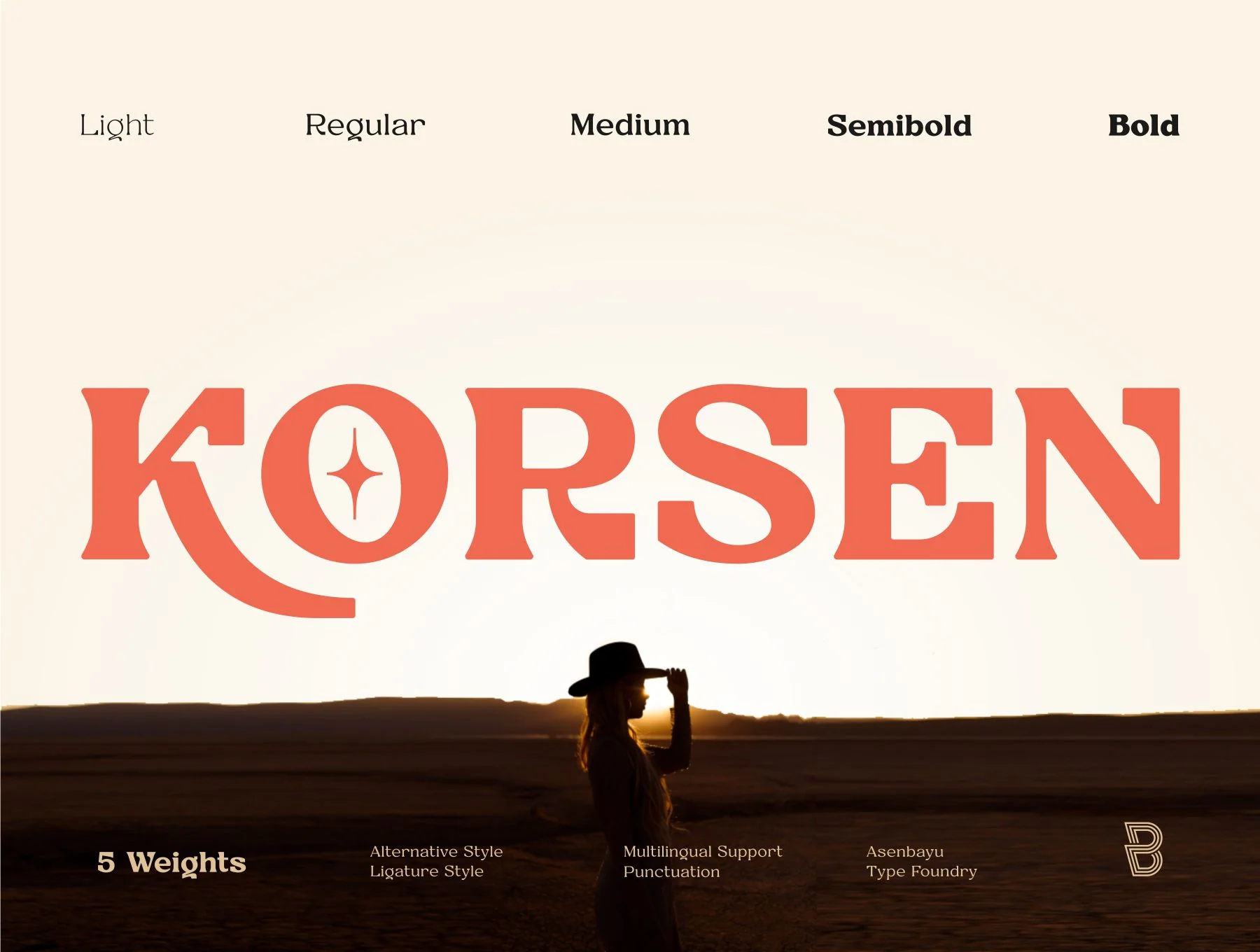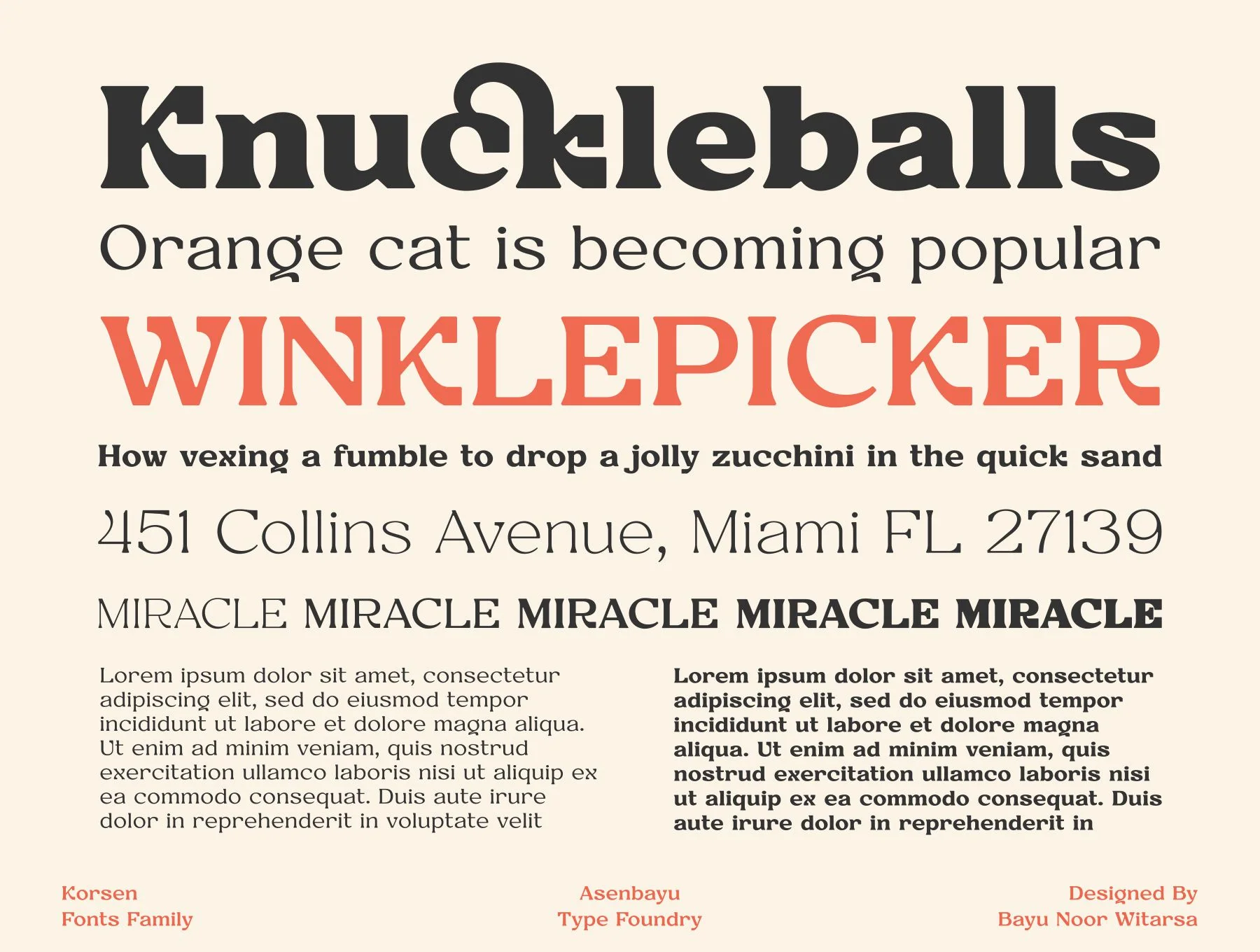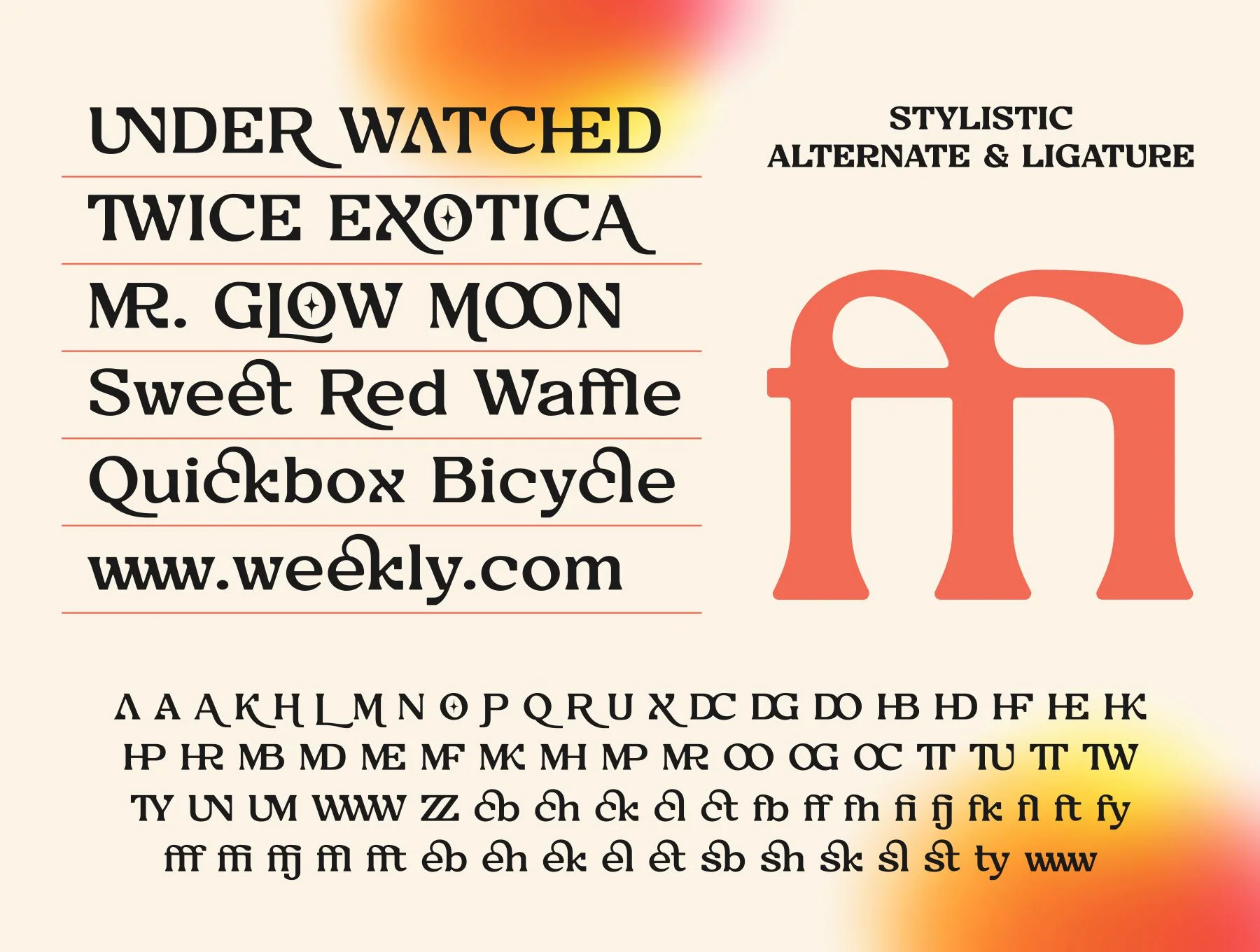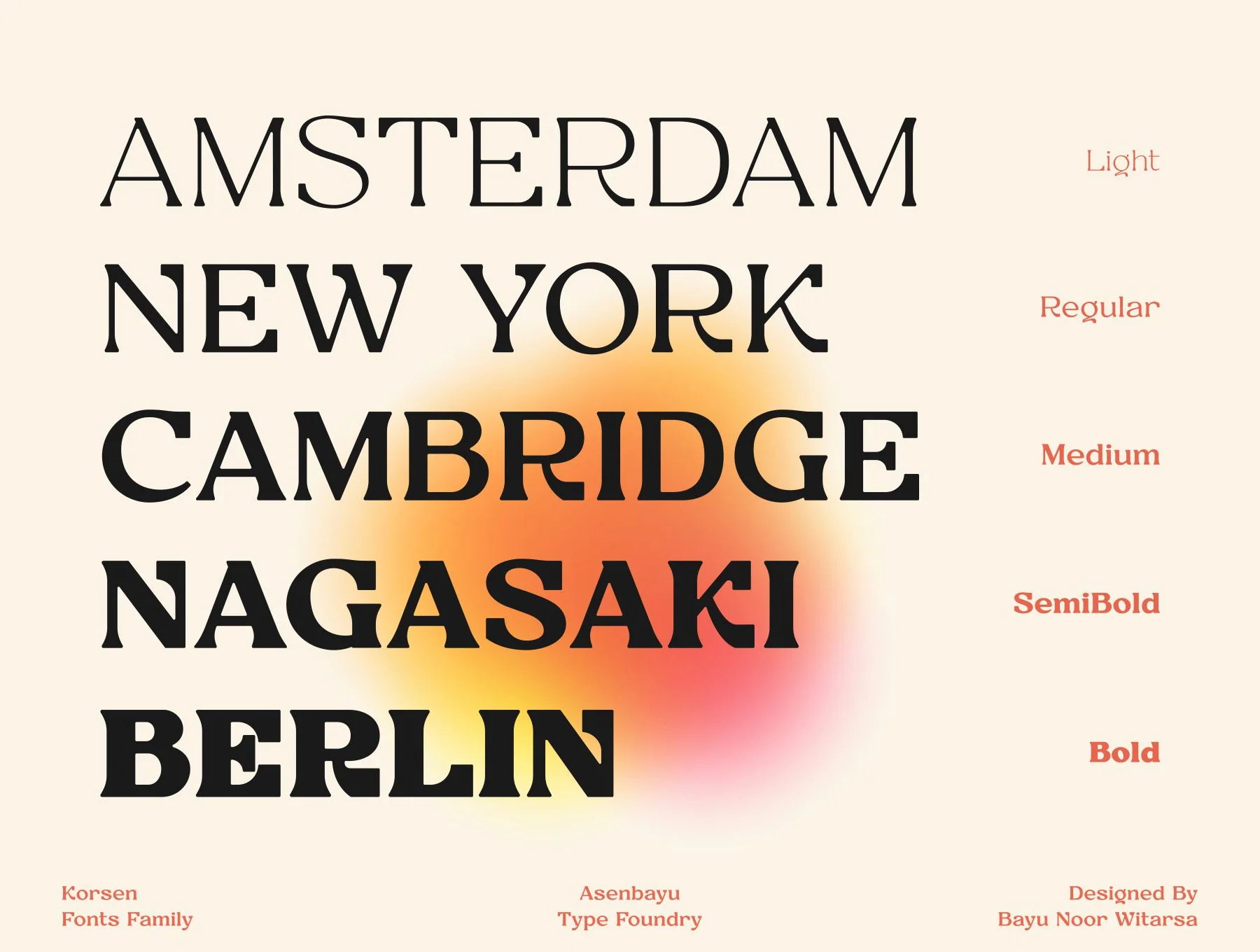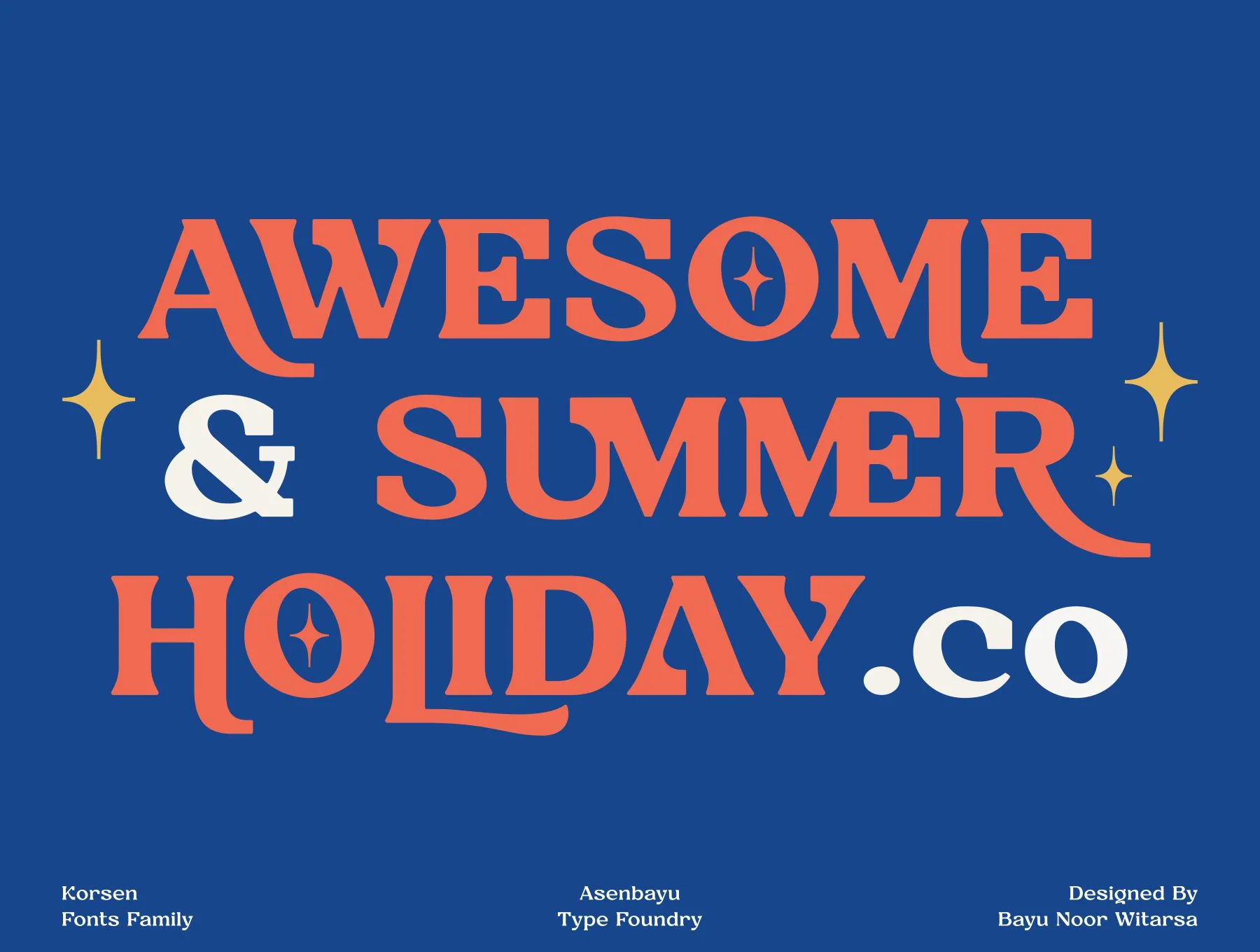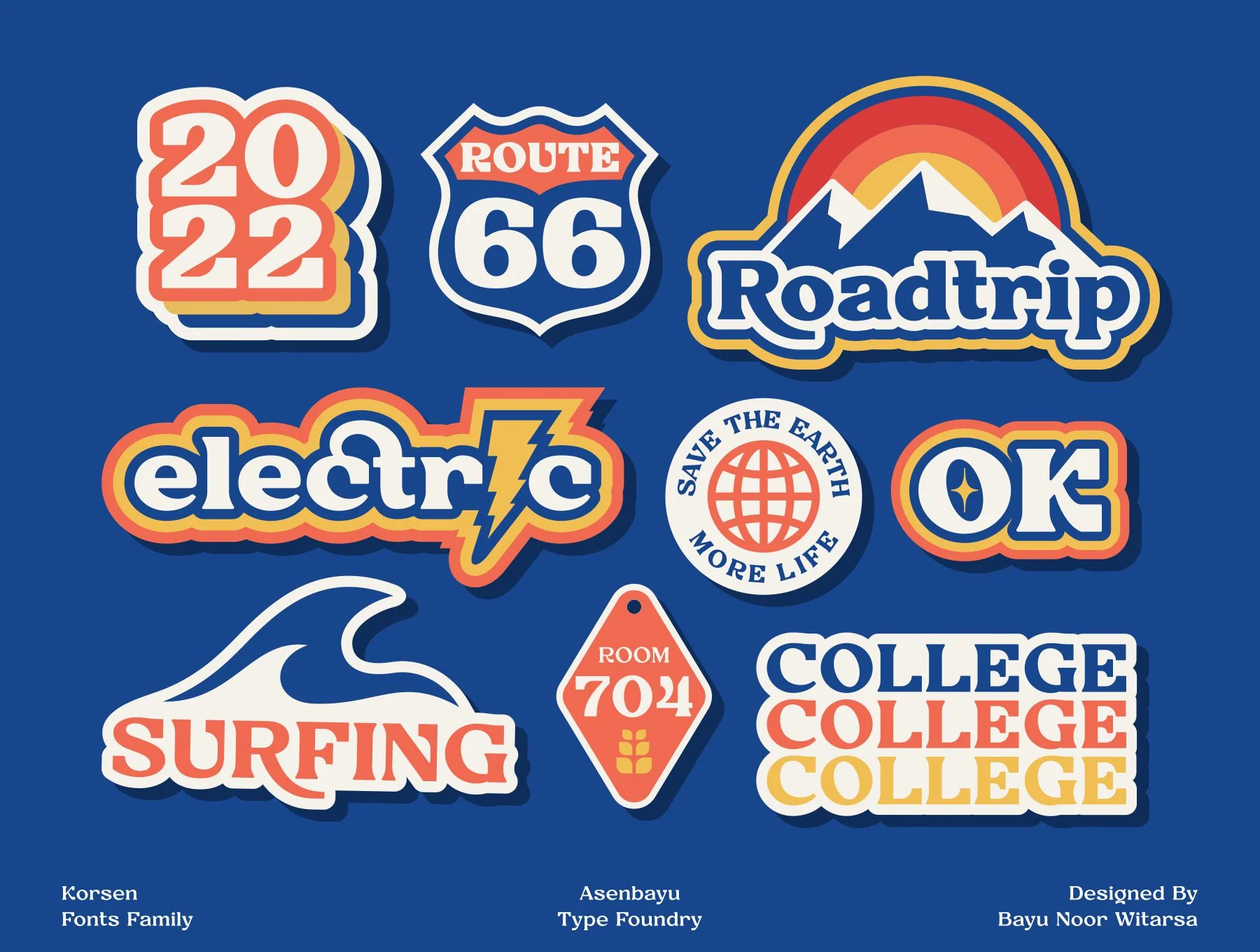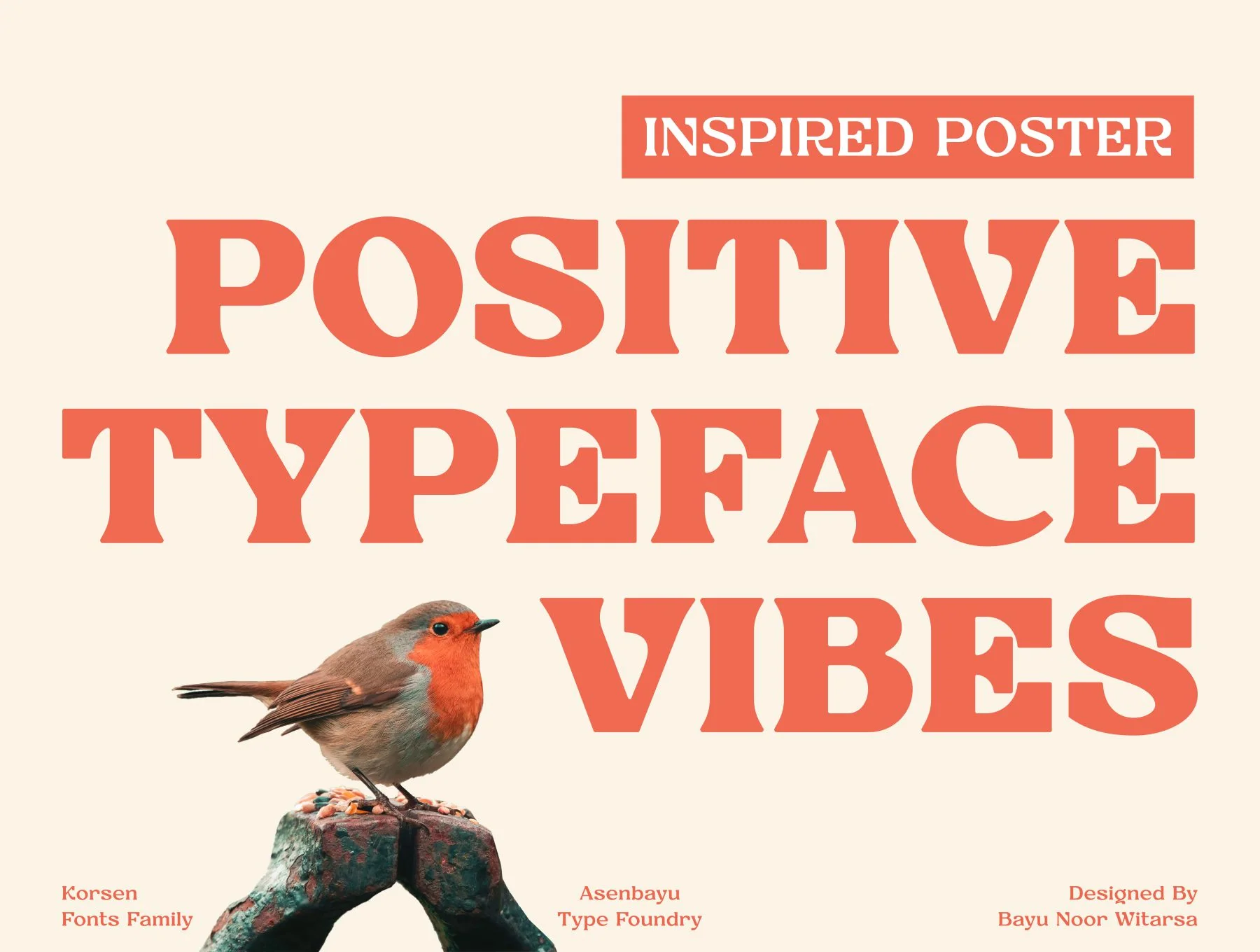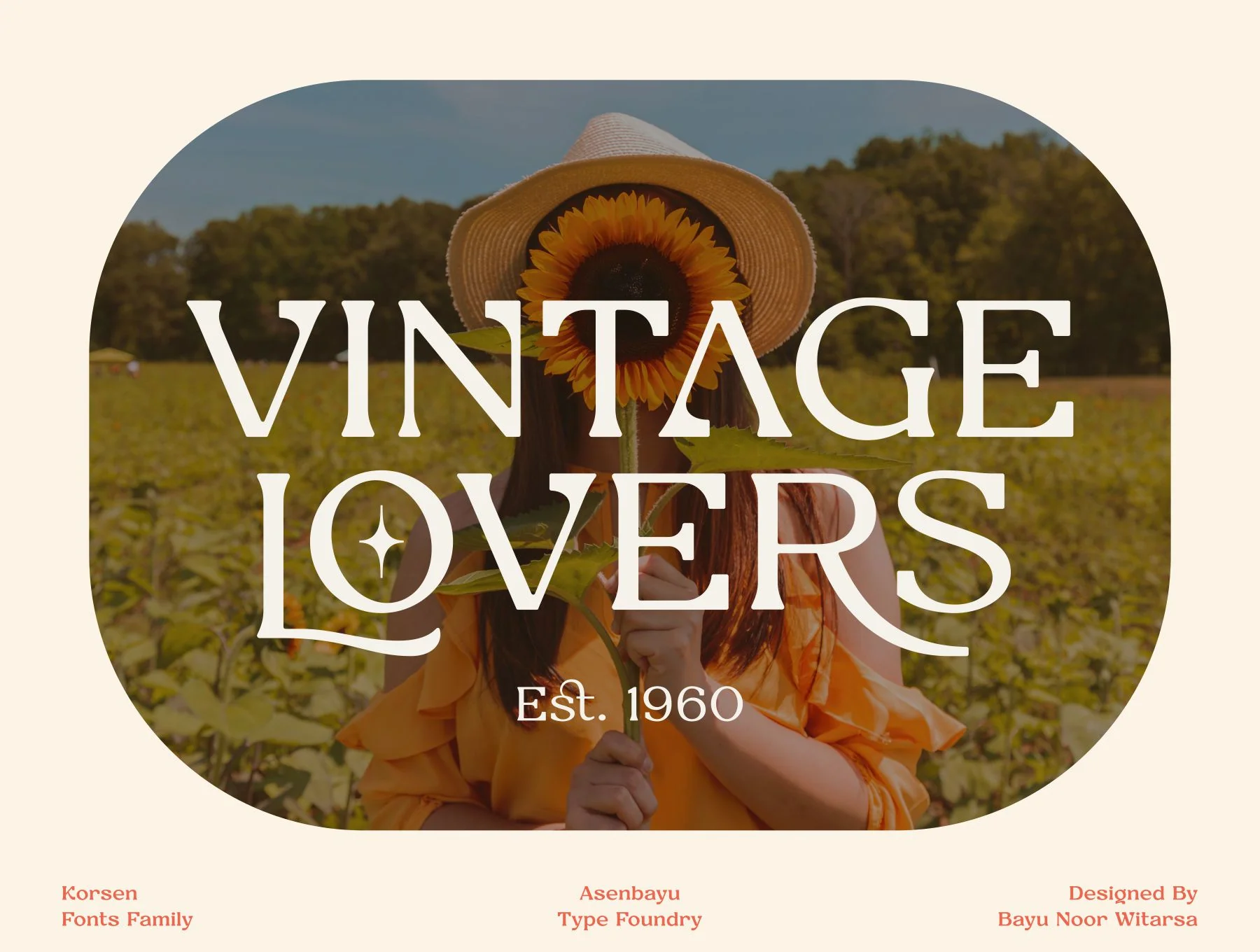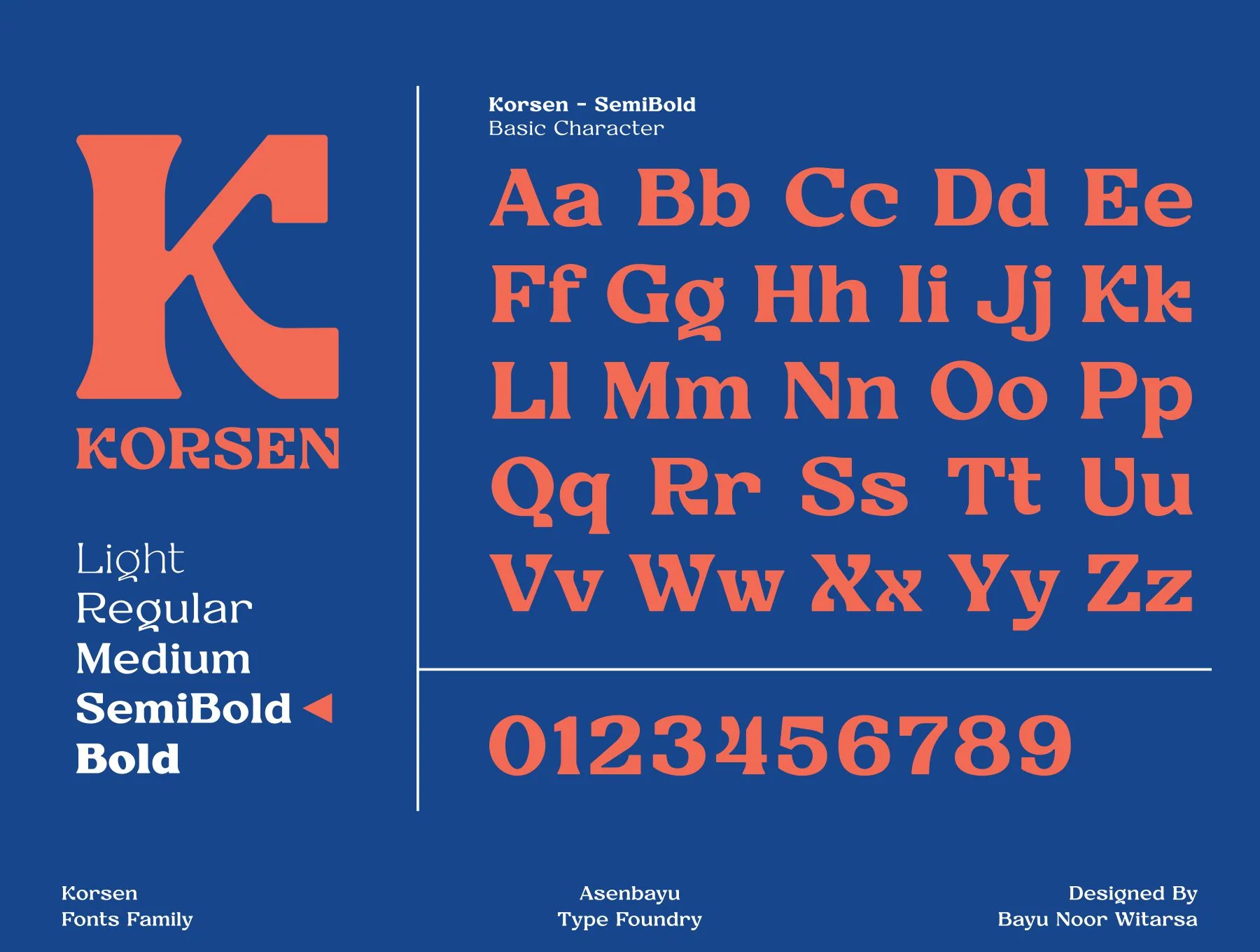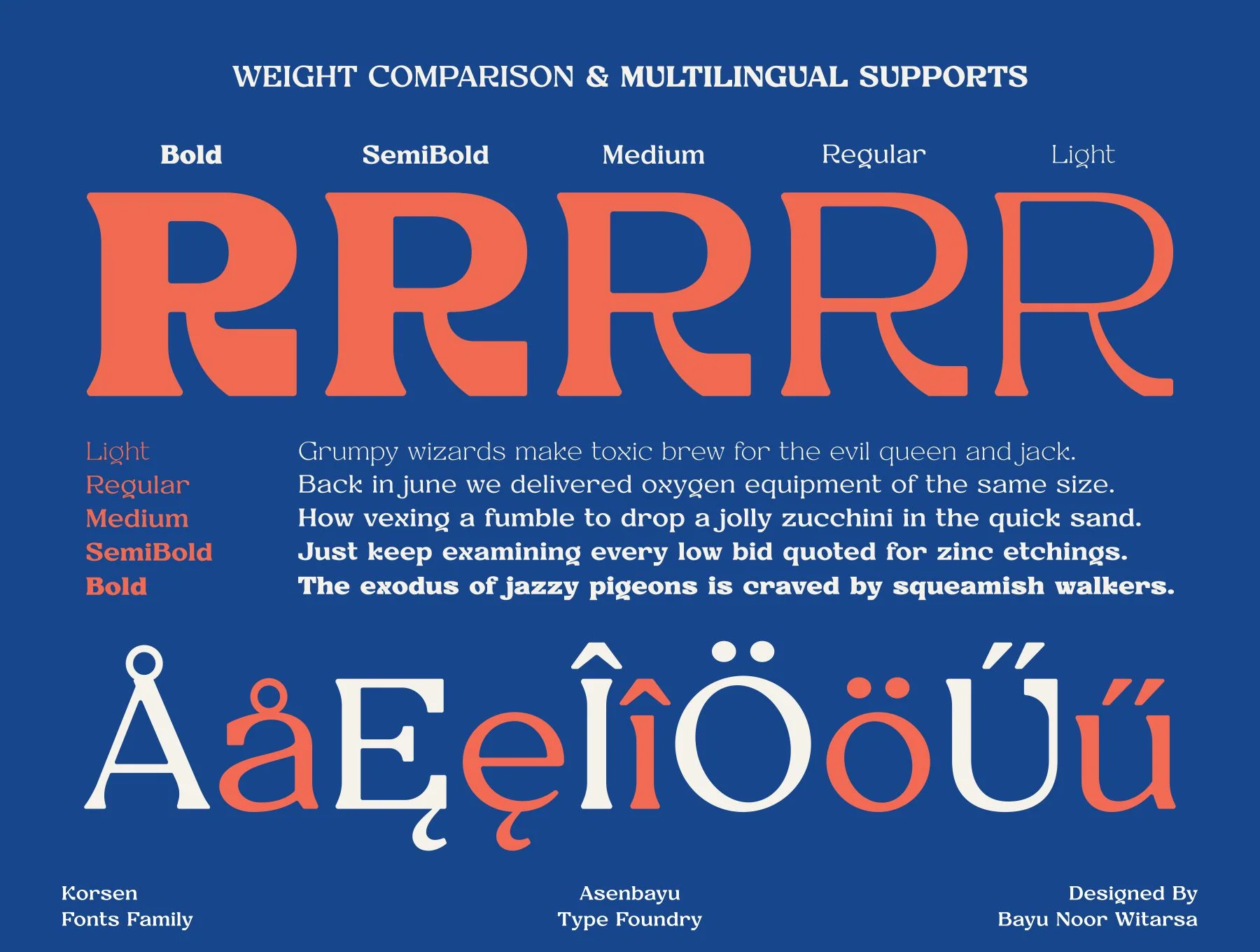
Korsen Fonts Family
Ornamental Font Family with 5 Styles
Regular glyph set
Five style options
Numbers and punctuation marks
Alternate characters and ligatures
Korsen is a distinctive all-purpose font family with 5 styles, blending serif, slab, and decorative influences. Its rounded letterforms suit retro, vintage, and modern work, from logos and headlines to products, social posts, and web designs. Includes OpenType features, kerning, ligatures, alternates, multilingual support, numerals, punctuation, and Light to Bold weights.